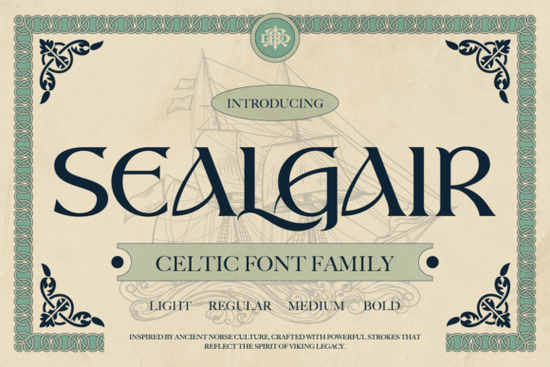
If you're looking for a typeface that carries real historical weight without sacrificing modern usability, Sealgair Font is worth your attention. It’s not just another decorative script it’s a thoughtfully built Celtic font family rooted in Norse and Gaelic visual traditions, with clean outlines, purposeful contrast, and subtle ornamentation that feels earned, not tacked on. Whether you’re designing a book cover for a fantasy novel, branding a small-batch mead company, or creating merch for a local Highland games festival, Sealgair brings authenticity without compromising legibility.
What makes Sealgair different from other Celtic-style fonts?
Many fonts labeled “Celtic” lean heavily into swirls and knots beautiful, but often hard to read at smaller sizes or in body text. Sealgair avoids that trap. Its letterforms balance sharp terminals and soft curves in a way that nods to ancient inscriptions while staying functional for today’s design needs. You’ll notice the careful spacing, the consistent x-height across weights, and how each character maintains personality without becoming distracting. It’s designed to work not just look impressive in a thumbnail.
The family includes four full weights: Light, Regular, Medium, and Bold. That means you can layer headlines, subheads, and pull quotes with real typographic hierarchy not just size changes. Plus, stylistic alternates and ligatures let you fine-tune rhythm and emphasis, especially useful when setting titles or short phrases where every letter counts.
Who actually uses Sealgair and how?
Small business owners building a brand around heritage, craftsmanship, or storytelling find Sealgair especially helpful. Think distilleries, artisanal soap makers, indie game studios, or even tattoo artists sketching custom lettering concepts. Print-on-demand sellers use it for posters, mugs, and apparel where a strong, recognizable identity matters more than trendiness.
Designers working on editorial layouts especially for mythology, folklore, or history publications appreciate how Sealgair holds up in both large display settings and tighter caption spaces. And because it supports multilingual characters (including extended Latin), it’s flexible enough for projects beyond English-only markets.
- Includes uppercase, lowercase, numerals, punctuation, alternates, and ligatures no need to hunt for missing glyphs.
One thing to keep in mind: Sealgair shines brightest when given room to breathe. Avoid cramming it into tiny UI buttons or dense paragraphs. Use it where typography plays a role in storytelling movie title cards, chapter headings, shop signage, or even engraved wooden tags for handmade goods.
If you’re already exploring Celtic-inspired design, you might also appreciate how Sealgair pairs with textured backgrounds, parchment overlays, or muted earth-tone palettes. But it doesn’t require heavy styling to make an impact sometimes, a simple black-on-cream setting lets the letterforms speak for themselves.